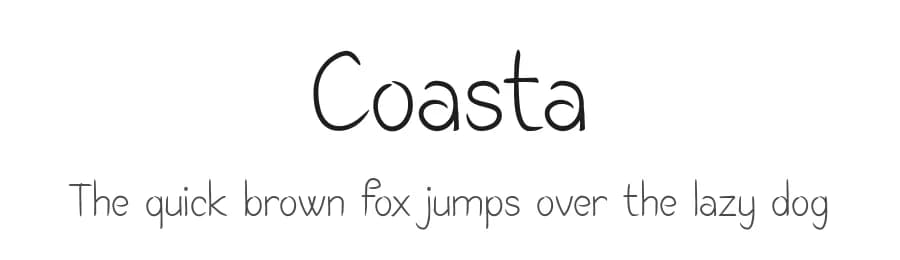
About Coasta Font
Coasta Specifications
| Designer | Andri Firmansyah |
Coasta Font is a script font that shines as a display or heading face. Pair it with a clean sans-serif or serif font for body text β the contrast creates a clear hierarchy while the two styles stay balanced and easy to read.
Coasta Font